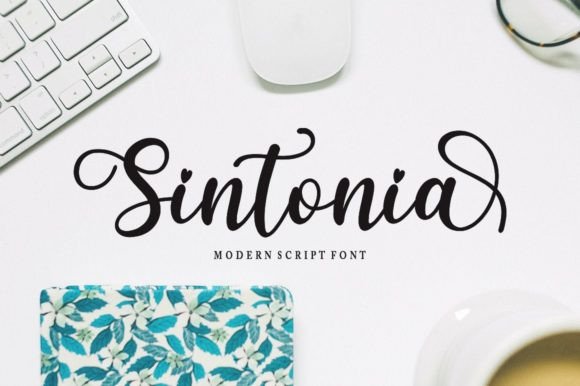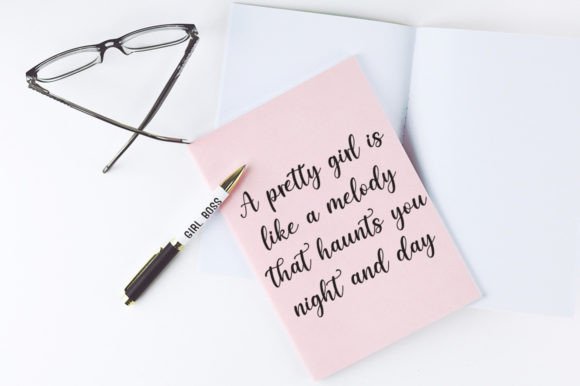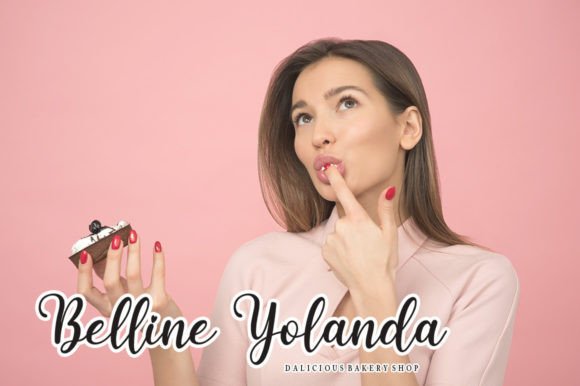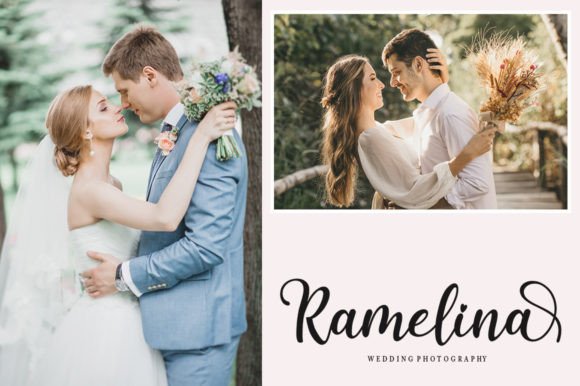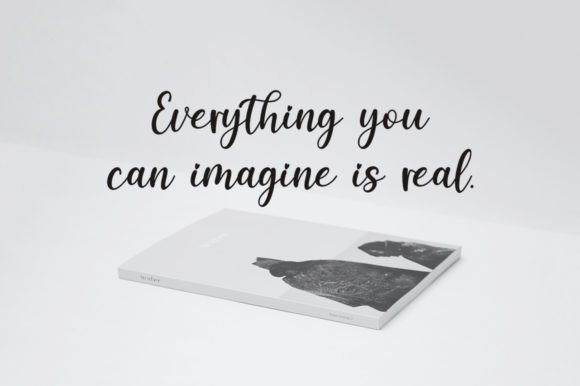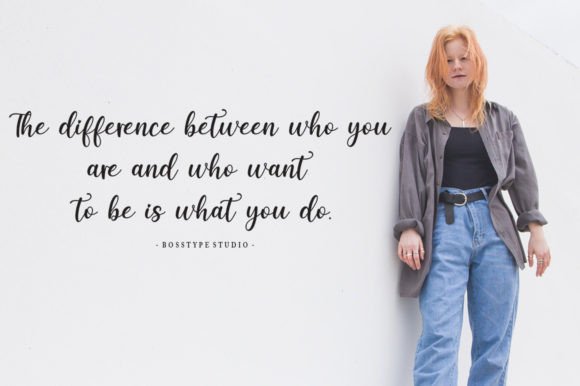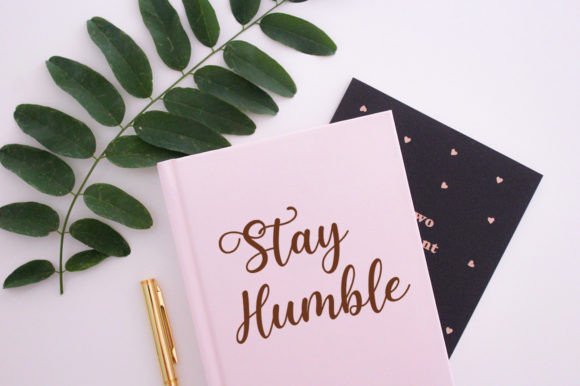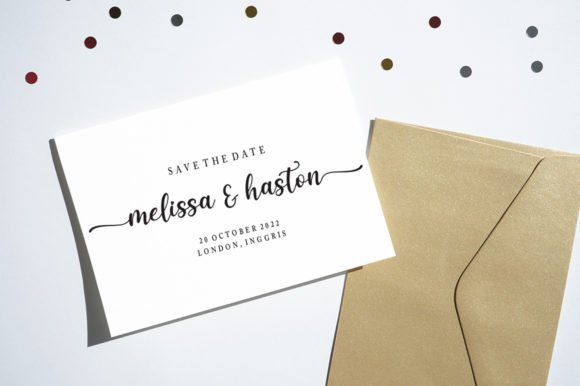
Sintonia Font
“Sintonia” embodies a delightful blend of romance and whimsy, making it a versatile choice for a variety of design projects. This font’s enchanting style makes it particularly well-suited for wedding invitations, thank you cards, quotes, greeting cards, logos, business cards, and any other design that benefits from a handwritten touch.
One standout feature of “Sintonia” is its PUA encoding, which allows for easy access to a wide array of glyphs and swashes. This feature enhances your creative freedom, enabling you to personalize and customize your designs effortlessly, adding a unique and personalized touch to your work.
With its varying baseline, smooth lines, exquisite glyphs, and stunning alternates, “Sintonia” can elevate your designs, giving them an air of sophistication and charm. Whether you’re aiming for a romantic and dreamy aesthetic or a whimsical and playful look, this font can help you achieve your desired style with grace. Incorporate “Sintonia” into your design projects to infuse them with elegance and personality, making them truly memorable and enchanting.